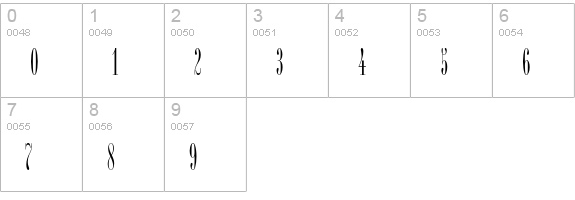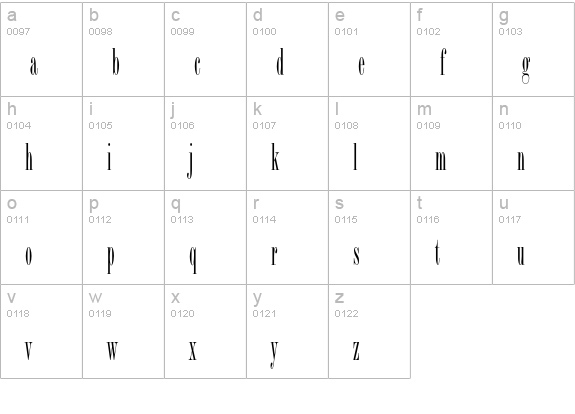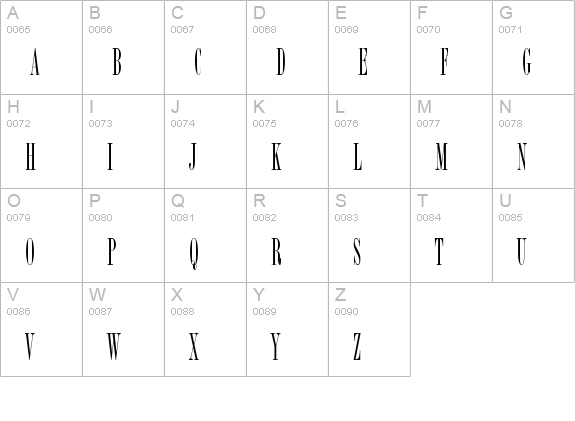
BordeauxICG Font Details
BordeauxICG font is a sophisticated and elegant typeface that exudes a sense of timeless luxury. With its intricate details and graceful curves, this font is perfect for adding a touch of class to any design project. The BordeauxICG font is versatile and can be used for a wide range of purposes, from branding and marketing materials to invitations and signage. What makes BordeauxICG font even more appealing is that it is available for free download at FontsMarket.com. This means that you can easily access this stunning font and incorporate it into your projects without any cost. Don't miss out on the opportunity to enhance your designs with the beauty and refinement of BordeauxICG font – download it for free today!